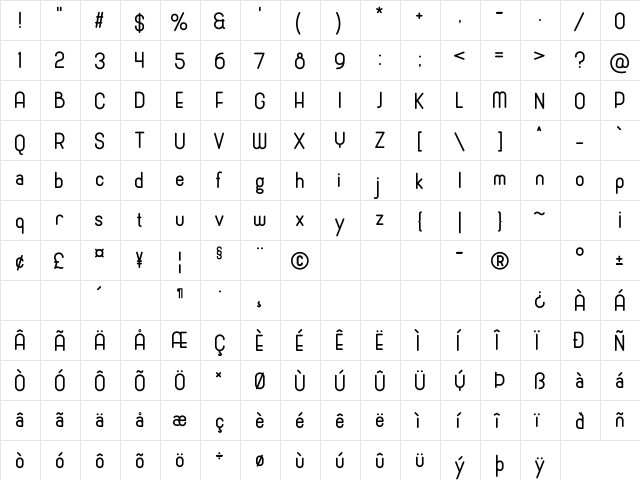
Cronus Round Regular
Design Context for Cronus Round Typeface
Cronus Round softens its letterforms with rounded terminals, giving it an approachable, friendly quality that works well in consumer-facing and digital contexts.
A natural fit for tech startups, health and wellness brands, children's products, and friendly consumer apps.
Font Pairing: Pairs well with a rounded or humanist sans for body copy, maintaining the friendly tone without relying on Cronus Round to carry extended reading.
Pro Tip: Pair Cronus Round with a geometric sans for a balanced system — the rounded softness works as a warm counterpoint to harder-edged companions.